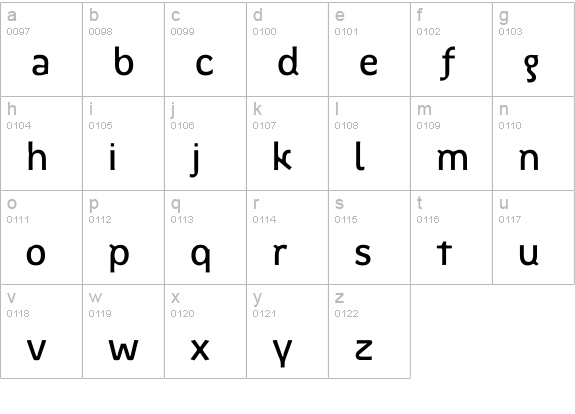
Spotka AlternateMedium font is a versatile and modern typeface that exudes elegance and sophistication. With its balanced proportions and clean lines, this font is perfect for a wide range of design projects, from branding to editorial design. The slightly condensed letterforms give it a sleek and contemporary look, making it a great choice for both print and digital applications. The Spotka AlternateMedium font is available for free download at FontsMarket.com, making it accessible to designers and creatives looking to add a touch of sophistication to their projects without breaking the bank. Whether you're designing a logo, creating a poster, or working on a website, this font will elevate your design and give it a polished and professional finish. Download Spotka AlternateMedium font today and take your designs to the next level.